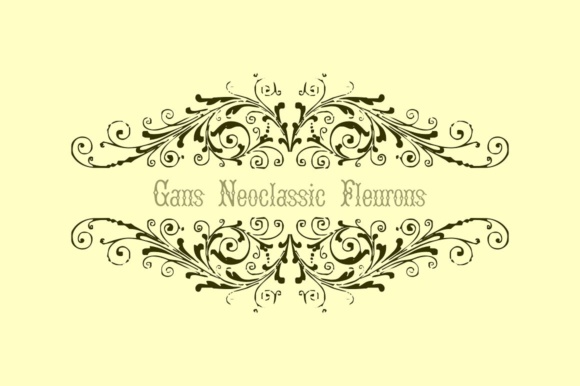
About Candy Script
Inspired by Argentina and its culture, Alejandro Paul\’s Candy Script captures the country\’s spirit. It comes from the tradition of window sign painting, but its thick hand-brushed characters, with alternates for almost every upper and lowercase letter,…